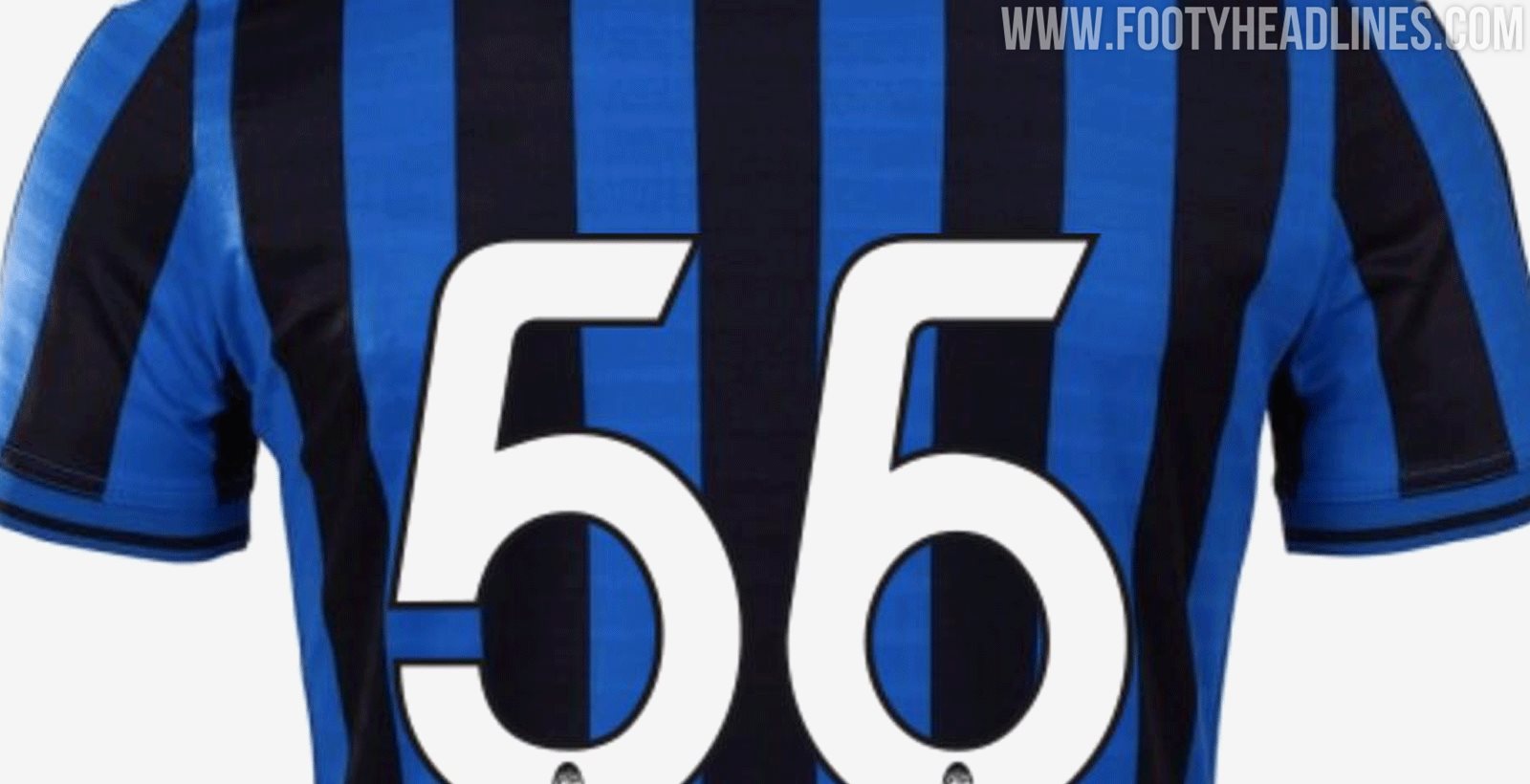
"Buy A 5, Get A 6 For Free" - Odd Atalanta 19-20 Kit Font Released
Atalanta is wearing a bespoke typeface in the 2019-20 season. The style is really unique but also a bit uncommon, a least for two numbers...
Atalanta 19-20 Font
The below image shows the new Atalanta 2019-2020 typeface on the back of the home kit.
The Atalanta 2019-20 font comes with hard edges only on the 'outside areas', resulting in a stylish, playful look.
When directly comparing the number 5 and 6, it stands out that they are almost identical - the designer just removed a few pints from the 5 to create the 6. A bit lazy as this is usually done only for certain numbers.
The Atalanta BC crest is placed at the bottom.
However, as currently no Atalanta player is wearing the #65 or #56 kit, the problem currently only exists 'on the paper'.